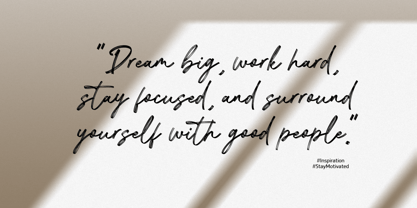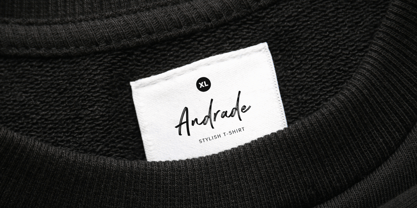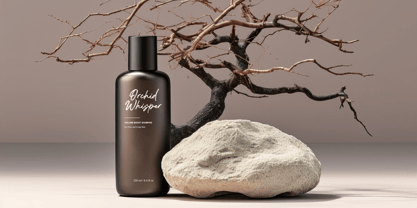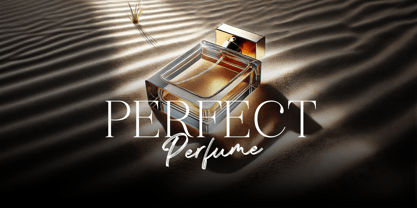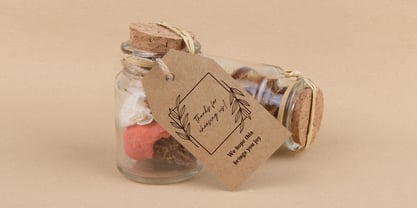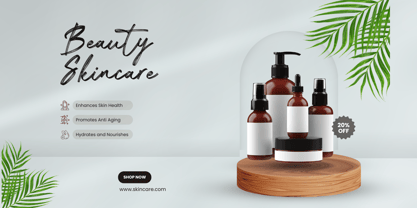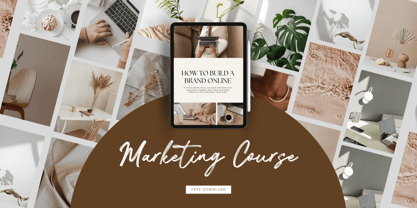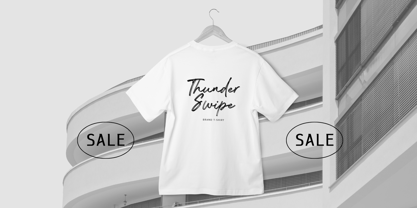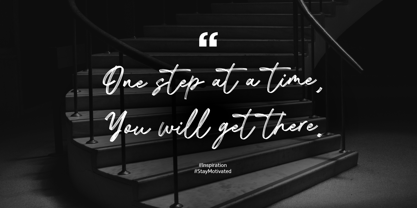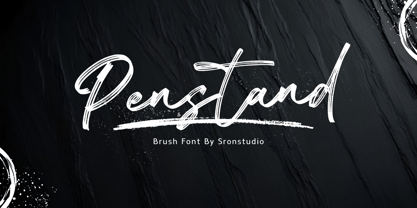
Penstand
by Sronstudio
The Penstand Font Family was designed by Muhamad Yusron Billah and published by Sronstudio. Penstand contains 1 styles. More about this family
Penstand is a bold and expressive brush font that brings energy and personality to your designs. With its natural strokes and handcrafted feel, this font is perfect for posters, branding, packaging, quotes, and any project that needs a dynamic and artistic touch. Penstand captures the beauty of hand-drawn brush lettering, making your designs stand out with authenticity and style.
- Uppercase & lowercase letters
- Numerals & punctuation
- Multilingual support
Designers: Muhamad Yusron Billah
Foundry: Sronstudio